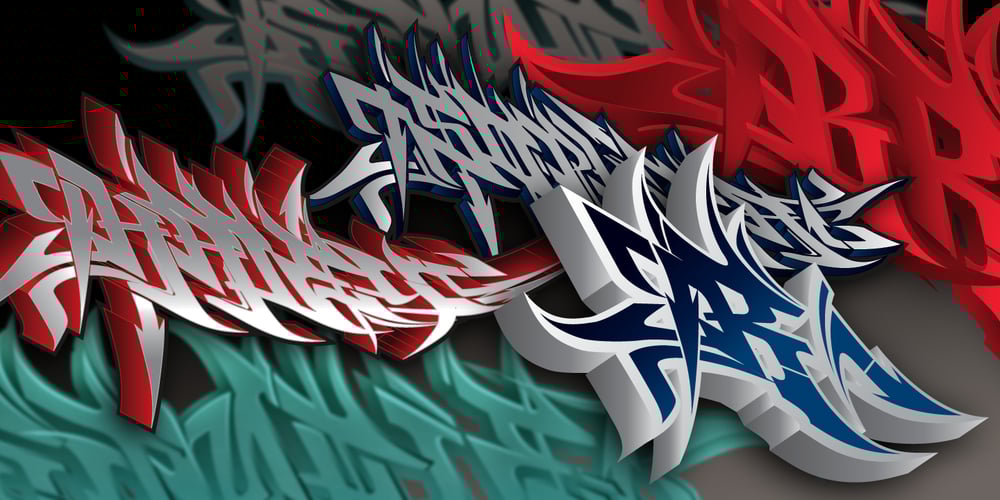
Burner Graffiti Font Family was designed by Matthew Napolitano and published by Graffiti Fonts. Burner Graffiti contains 1 styles and family package options. Burner is an advanced, connecting, wildstyle graffiti font family including over 200 unique letters, numbers & symbols. The family includes outlines, fills, details and more. Mix and match glyphs from 3 alphabets, add end pieces and more. Repeating flames, arrows & flourishes & other embellishments are included. The Burner family includes 3 full alphabets in each of the 4 styles as well as numbers, punctuation and a wide array of arrows, bars , begining & end pieces. Like some of our earlier wildstyle typefaces such as RaseOne or WildStyle, the Burner font family is a layered type system made to work as a team. In nearly any application 2 or more styles can be easily layered to create advanced, multicolor, wildstyle pieces. This layering system provides a shortcut to time consuming effects such as sharp corners & variable widths on outlines, fills & details. The original glyphs were all drawn by hand taking inspiration from actual painted & drawn wildstyles from RaseOne spanning the late 90’s to about 2006.